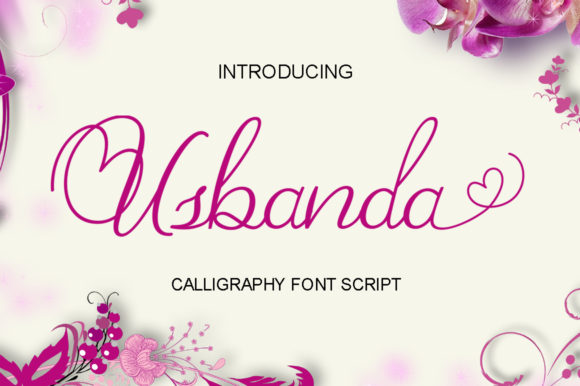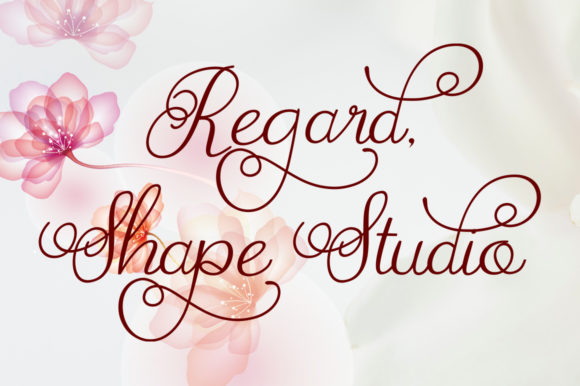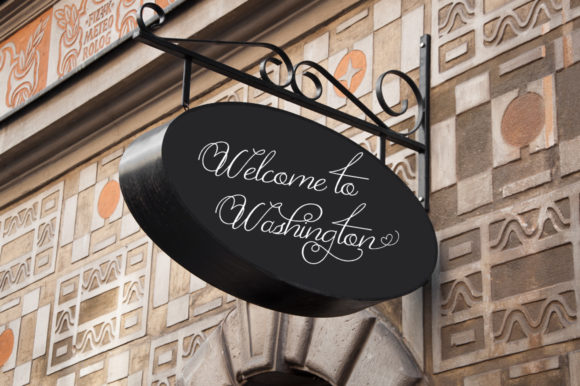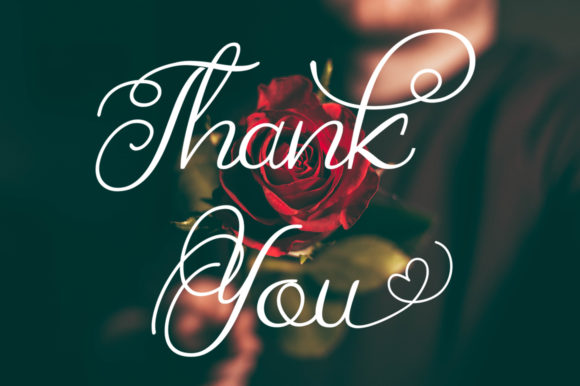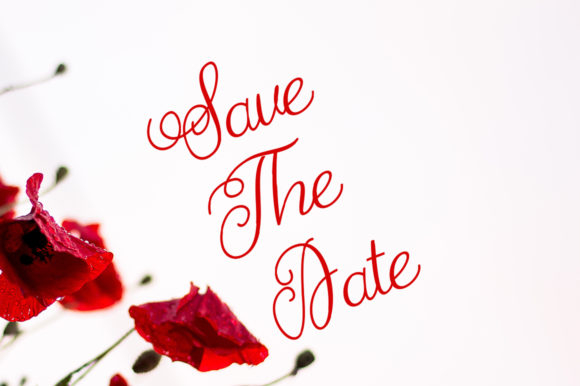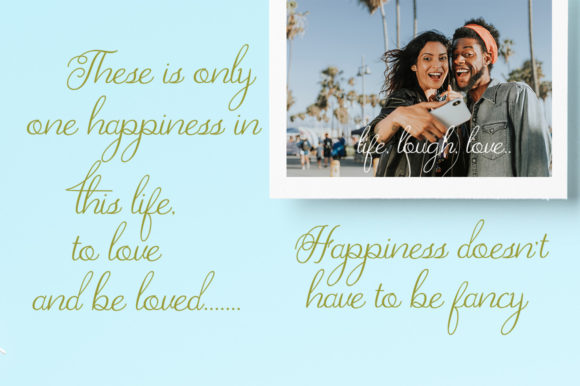
Usbanda Script Font
About Usbanda Script Font
The Usbanda is a modern calligraphy script. It has an irregular baseline and will add a trendy and feminine style to your designs.
It can be used for wedding invitations, thank you cards, greeting cards, logos, and much more!